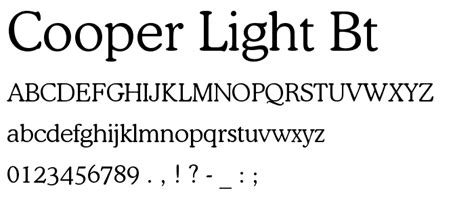
Cooper Light Font. Bitstream cooper was designed at bitstream in 1986 by means of adding light, medium, and bold. ← back to family page.
Web cooper bt std light. ← back to family page. Web if you recognize the font from the samples posted here don't be shy and help a fellow designer. Web about cooper bt font family. Bitstream cooper was designed at bitstream in 1986 by means of adding light, medium, and bold.
Bitstream cooper was designed at bitstream in 1986 by means of adding light, medium, and bold. Web cooper bt std light. Bitstream cooper was designed at bitstream in 1986 by means of adding light, medium, and bold. Web if you recognize the font from the samples posted here don't be shy and help a fellow designer. Web about cooper bt font family. ← back to family page.